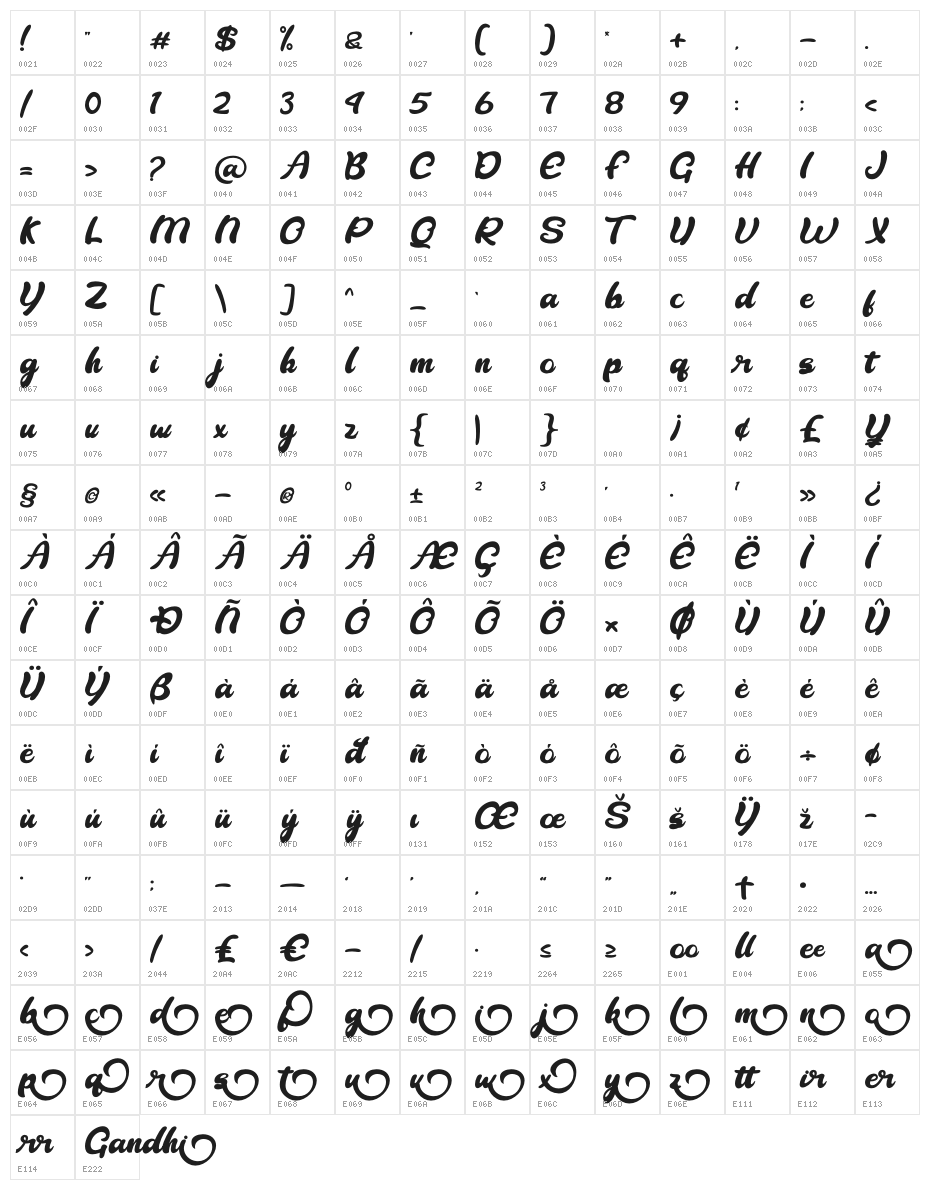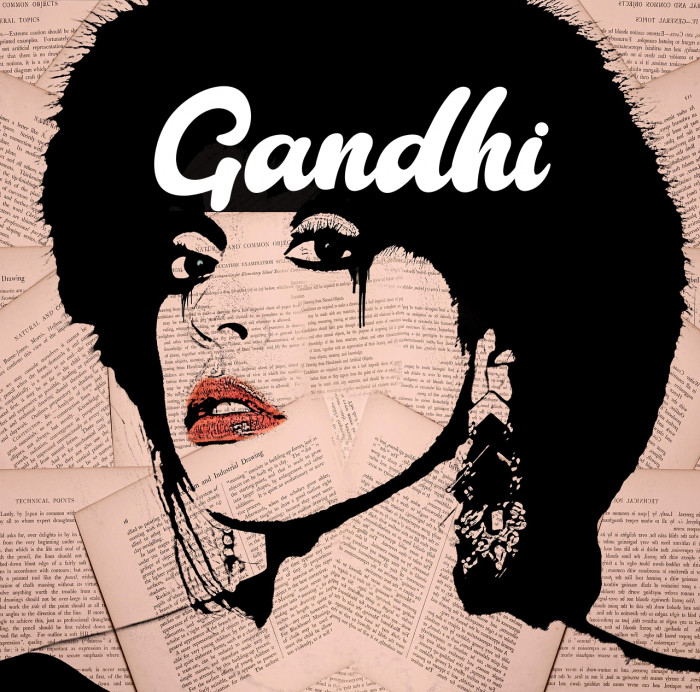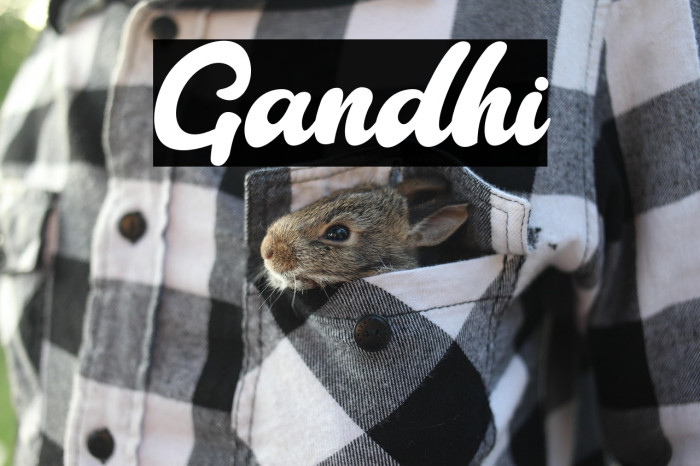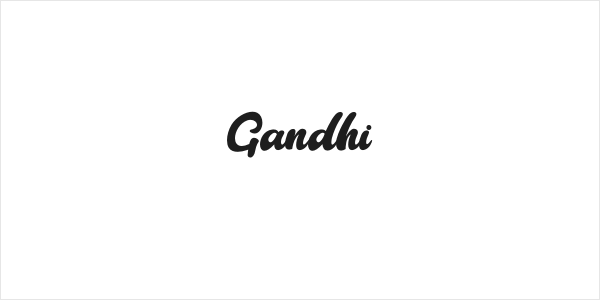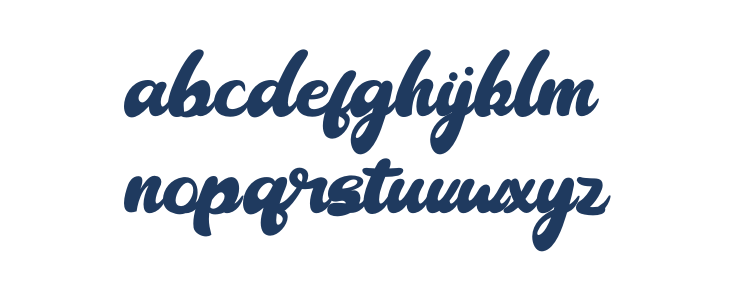
Gandhi Font
Gandhi Description
This font features a bold and expressive script style with smooth, flowing curves and a handwritten appearance. The characters are connected, creating a sense of continuity and fluidity. The uppercase letters are slightly more formal, while the lowercase letters exhibit a casual, friendly vibe. The numbers and special characters maintain the same flowing style, ensuring consistency across all elements. This font's thick strokes and rounded edges give it a playful yet elegant look, making it suitable for a variety of creative applications.